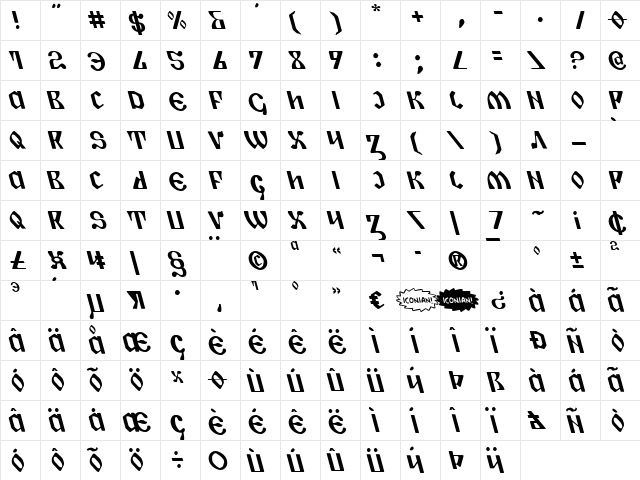
Piper Pie Leftalic Leftalic
Design Context for Piper Pie Leftalic Typeface
Piper Pie Leftalic is a composed and adaptable typeface that performs quietly and consistently across a wide range of design contexts. The slanted form adds forward momentum and visual energy.
Pro Tip: Use Piper Pie Leftalic for emphasis, pull quotes, and subheadings where its slanted energy can add rhythm to the layout.